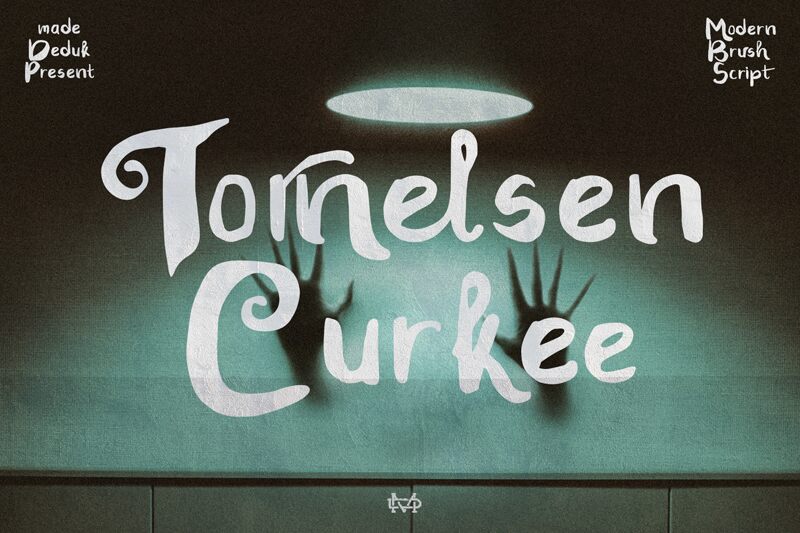
Tornelsen Curkee font by madeDeduk is an expressive brush font with a genuine artistic style. Its energetic appearance perfectly combines refined detailing with bold strokes, and each glyph has been thoughtfully designed. The dynamic flow of letters creates a natural organic feel, greatly enhanced by the contemporary flair that makes this typeface identifiable.
Use Tornelsen Curkee on printed posters or invitations for a casual calligraphic appearance and put it online on websites or social media posts for vibrant branding. Other applications include T-shirts, greeting cards, product packaging/labels, magazines, flyers/brochures, typographic logos and more! This free handwritten font can be used anywhere!